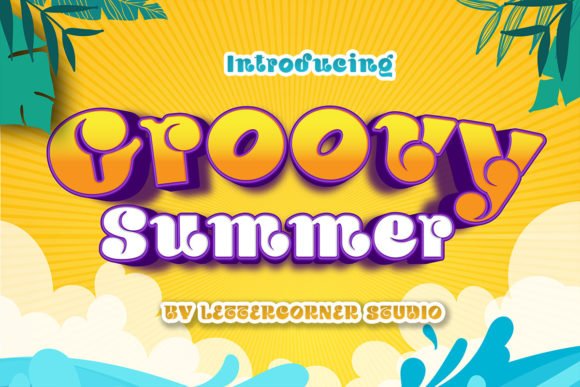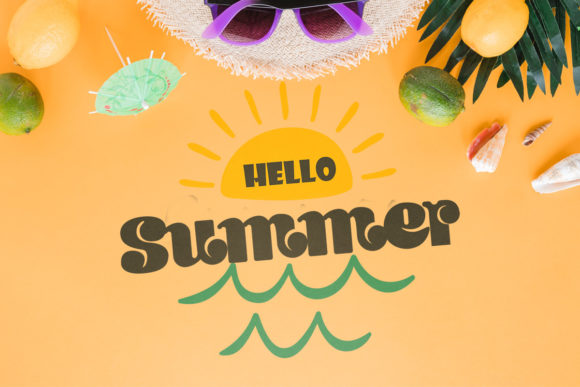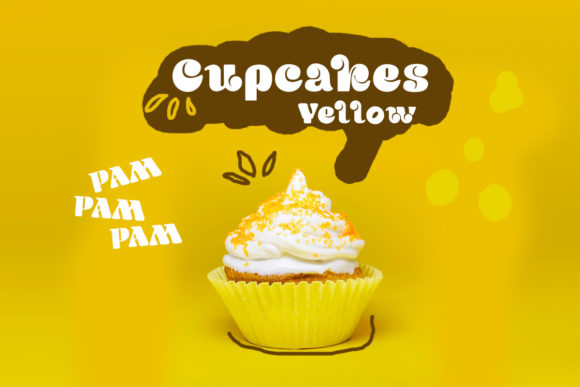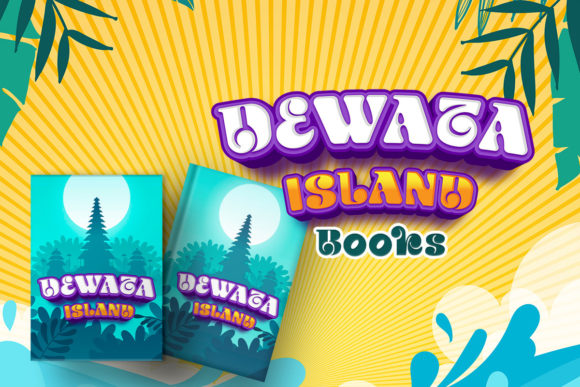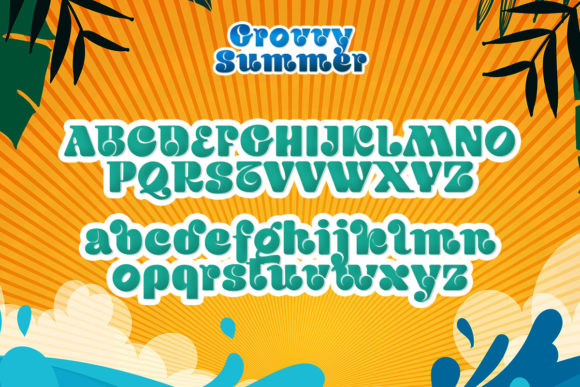
Summer Vibes in Every Letter
As the sun shines brighter and the days grow longer, our creativity often follows suit. There’s something about the carefree feeling of summer that inspires us to think outside the box and push the boundaries of our imagination. I still remember the countless hours I spent as a kid, pouring over my favorite comic books and video games, mesmerized by the colorful characters and whimsical worlds that seemed to leap off the page.
Fast forward to today, and I’m thrilled to share with you a font that captures the essence of that same carefree spirit: the Groovy Summer Font. This fun, retro display font is perfect for adding a cheerful and colorful touch to your designs. Whether you’re working on a children’s book, a game design, or anything in between, Groovy Summer Font is sure to bring a smile to your audience’s faces.
As a designer, you know how much of a difference a single font can make in setting the tone for a project. That’s why I’m excited to highlight the Groovy Summer Font, a valuable addition to any designer’s toolkit. Its unique blend of retro charm and modern flair makes it an instant hit for anyone looking to add a little extra fun to their designs.
Groovy Summer Font Key Features
- Unique Characteristics: Distinctive, hand-drawn feel with a mix of playful and elegant elements; ideal for summer-themed designs, food packaging, and advertising
Designer Review: Groovy Summer Font
First impressions are everything, and Groovy Summer Font has a certain ✨ je ne sais quoi that catches the eye. The playful, psychedelic vibe is reminiscent of summer ’69, and it’s perfect for any project that needs a laid-back, carefree feel. The font’s wide range of weights and styles makes it incredibly versatile, allowing designers to create anything from retro-inspired posters to modern web layouts.
- ✨ Unique and eye-catching design that’s perfect for summer-themed projects or anything that needs a funky vibe
- ✨ Wide range of weights and styles for added flexibility and customization
- ✨ Great for headings, titles, and any text that needs to stand out
However, there are a few limitations to consider ⚠️. The font’s complexity can sometimes make it difficult to read at smaller sizes, and the ornate details may not be suitable for all projects. Additionally, the font’s weight and style may not be suitable for body text, making it better suited for headings and titles.
Overall, Groovy Summer Font is a fun and unique addition to any designer’s toolkit. While it may not be suitable for all projects, it’s perfect for those that need a little extra flair and personality.
Tips for Getting the Most Out of the Groovy Summer Font
Use the Groovy Summer Font to add a touch of whimsy and fun to your designs. It pairs well with bright colors and playful graphics. Experiment with different font sizes and styles to create a unique look.
The Groovy Summer Font is perfect for:
- Social media graphics
- Summer-themed invitations
- Wedding stationery
Alternatives to Groovy Summer Font
Great Vibes Font is a beautiful, elegant script font that evokes the feeling of a carefree summer. It is perfect for designing invitations, greeting cards, and other materials that require a touch of whimsy and romance. Great Vibes Font is more refined and polished compared to Groovy Summer Font, making it ideal for formal events and occasions.
Alex Brush Font is a hand-painted script font that has a soft, gentle feel. It is perfect for designing materials that require a touch of sophistication and elegance, such as wedding invitations, menus, and certificates. Alex Brush Font is more subtle and refined compared to Groovy Summer Font, making it ideal for formal and professional designs.